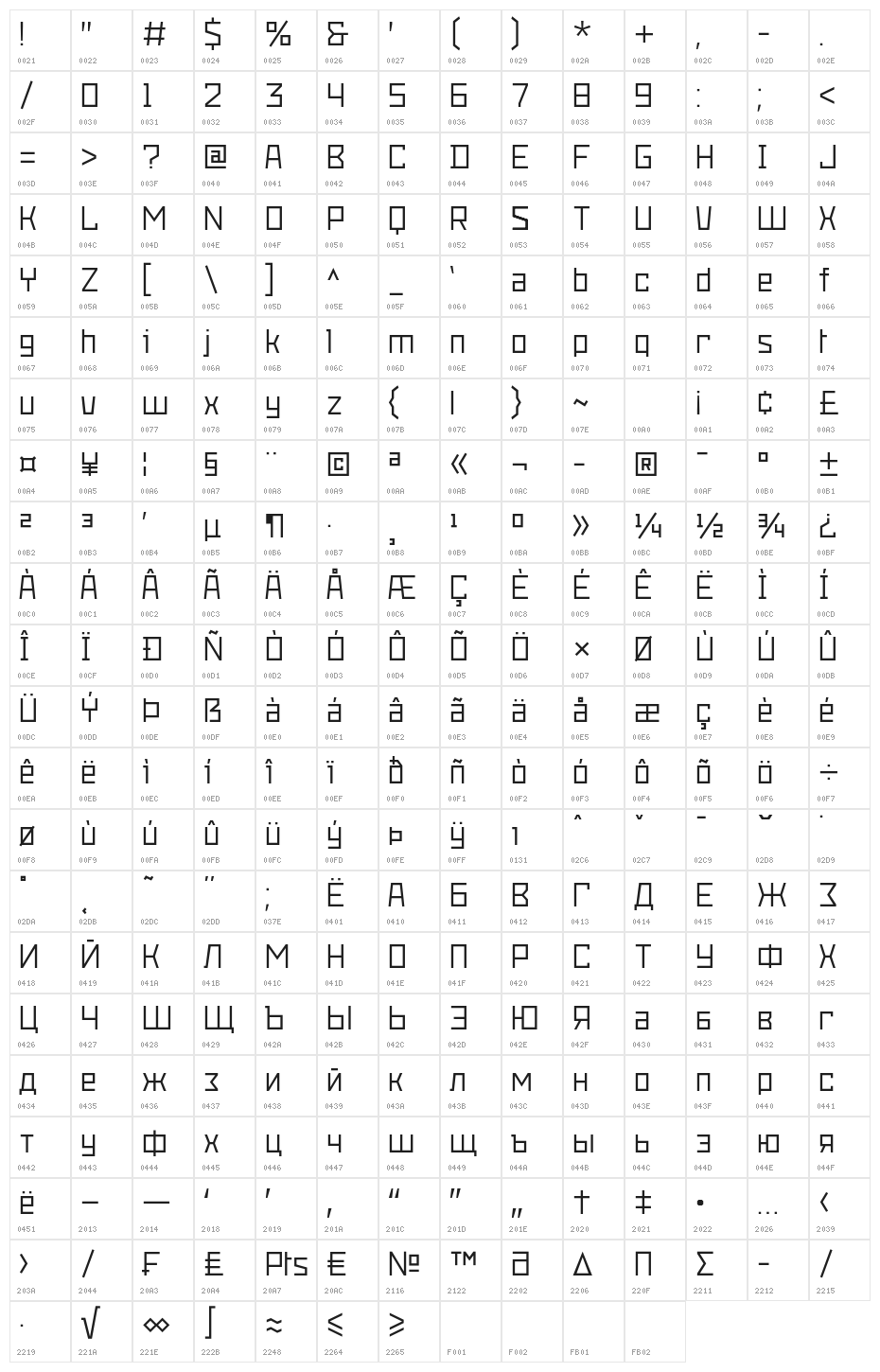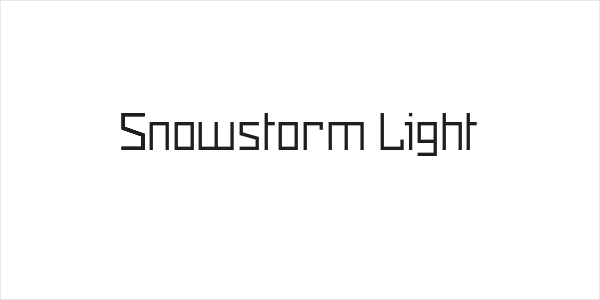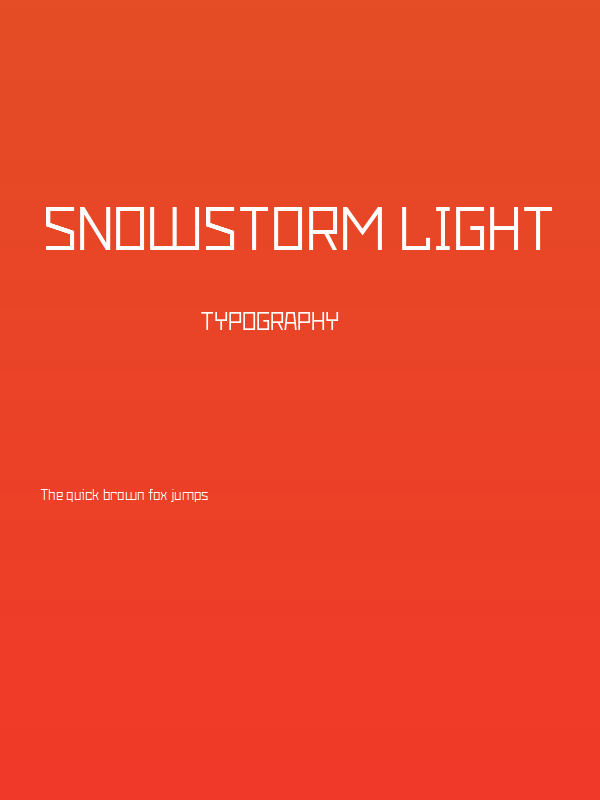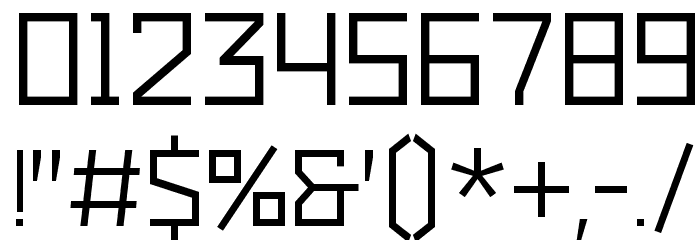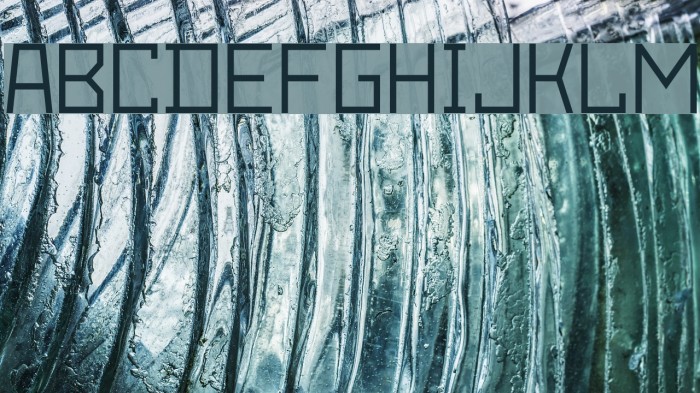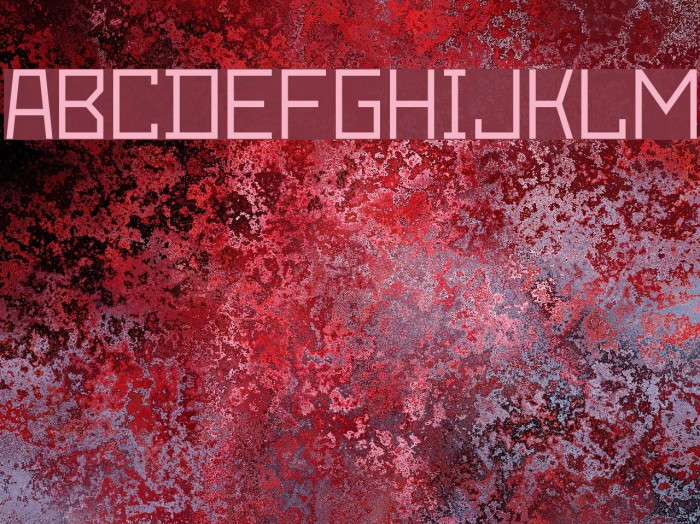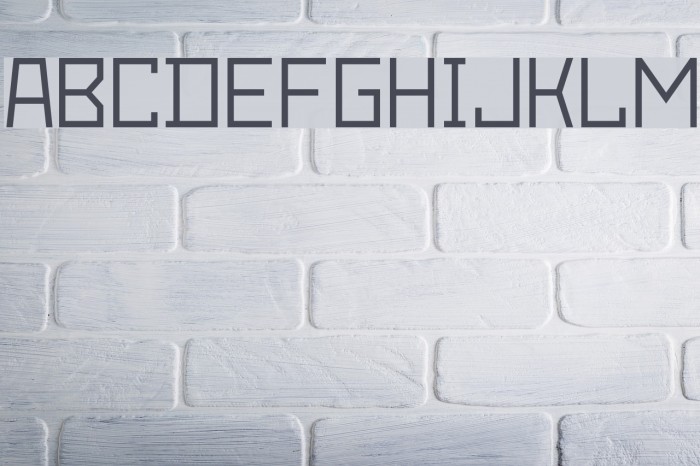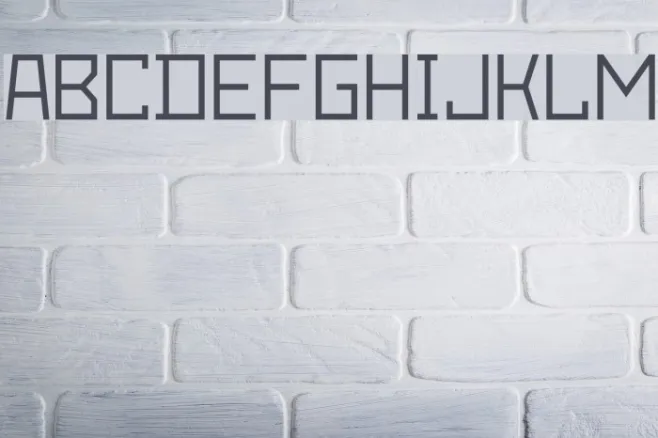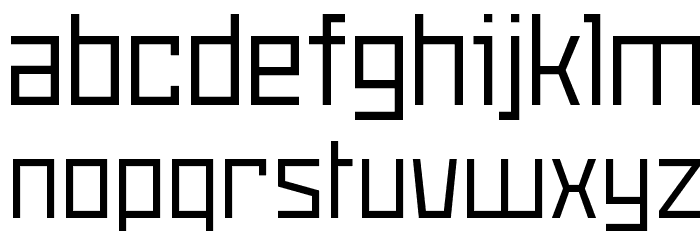
Snowstorm Light Font
Snowstorm Light Description
This font features a geometric and modern design with clean, straight lines and sharp angles. The characters are uniformly structured, giving a sense of order and precision. The uppercase and lowercase letters maintain a consistent height and width, creating a harmonious appearance. The numerals and special characters follow the same design principles, ensuring a cohesive look across all glyphs. The font's simplicity and clarity make it highly legible, while its contemporary style adds a touch of sophistication.
| Use Case | Headlines, Logos, Digital Interfaces |
| Proposed Projects | Ideal for tech branding, modern web design, minimalist posters, and digital interfaces. |